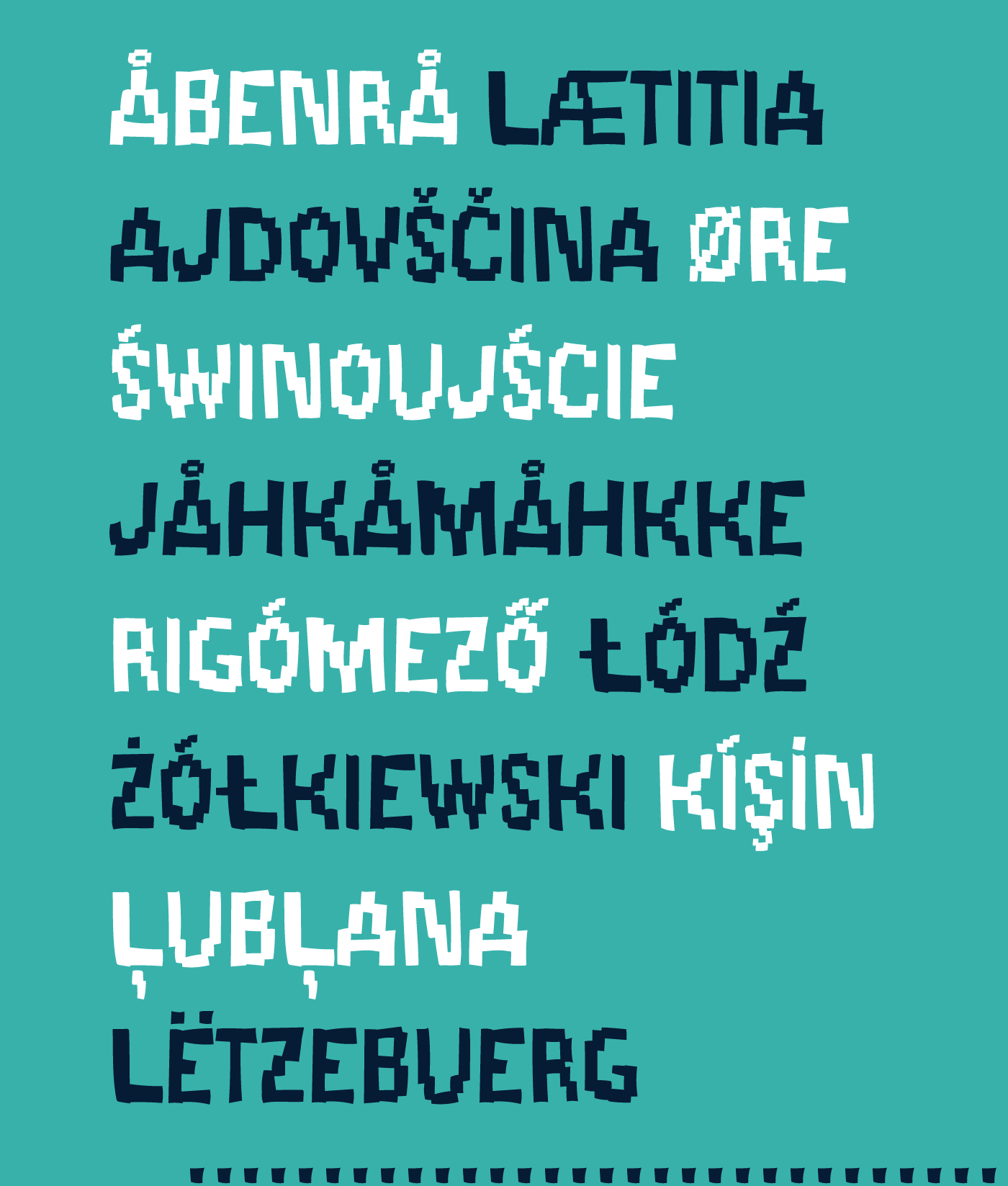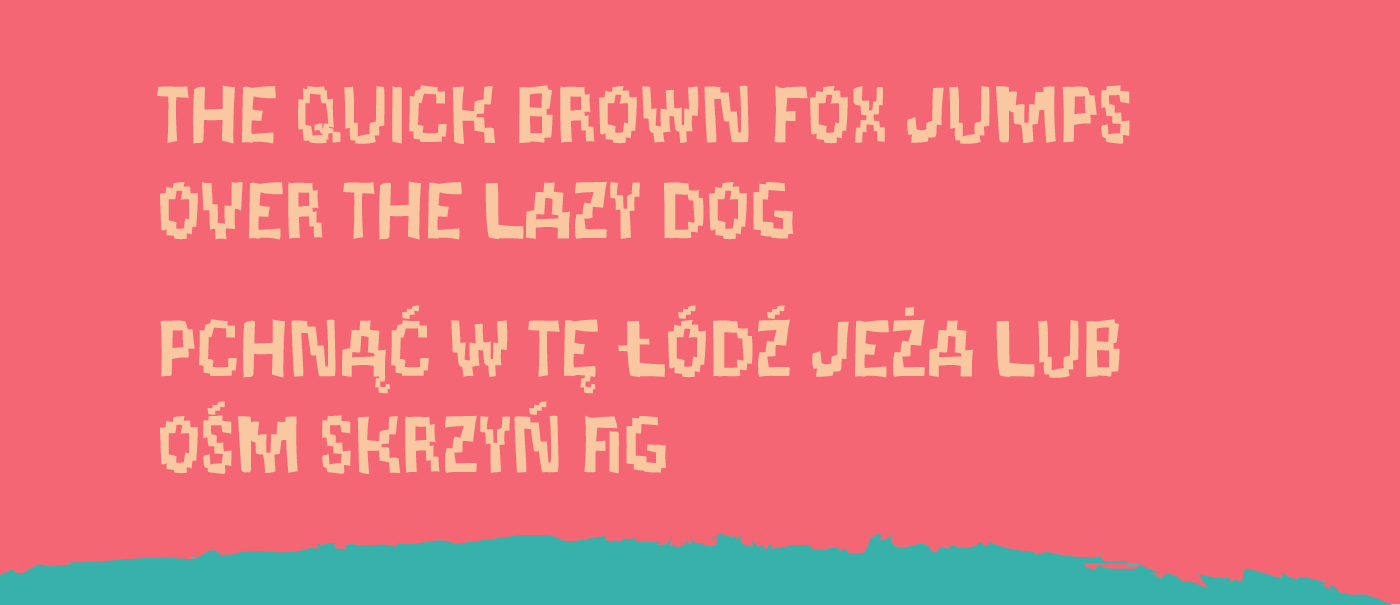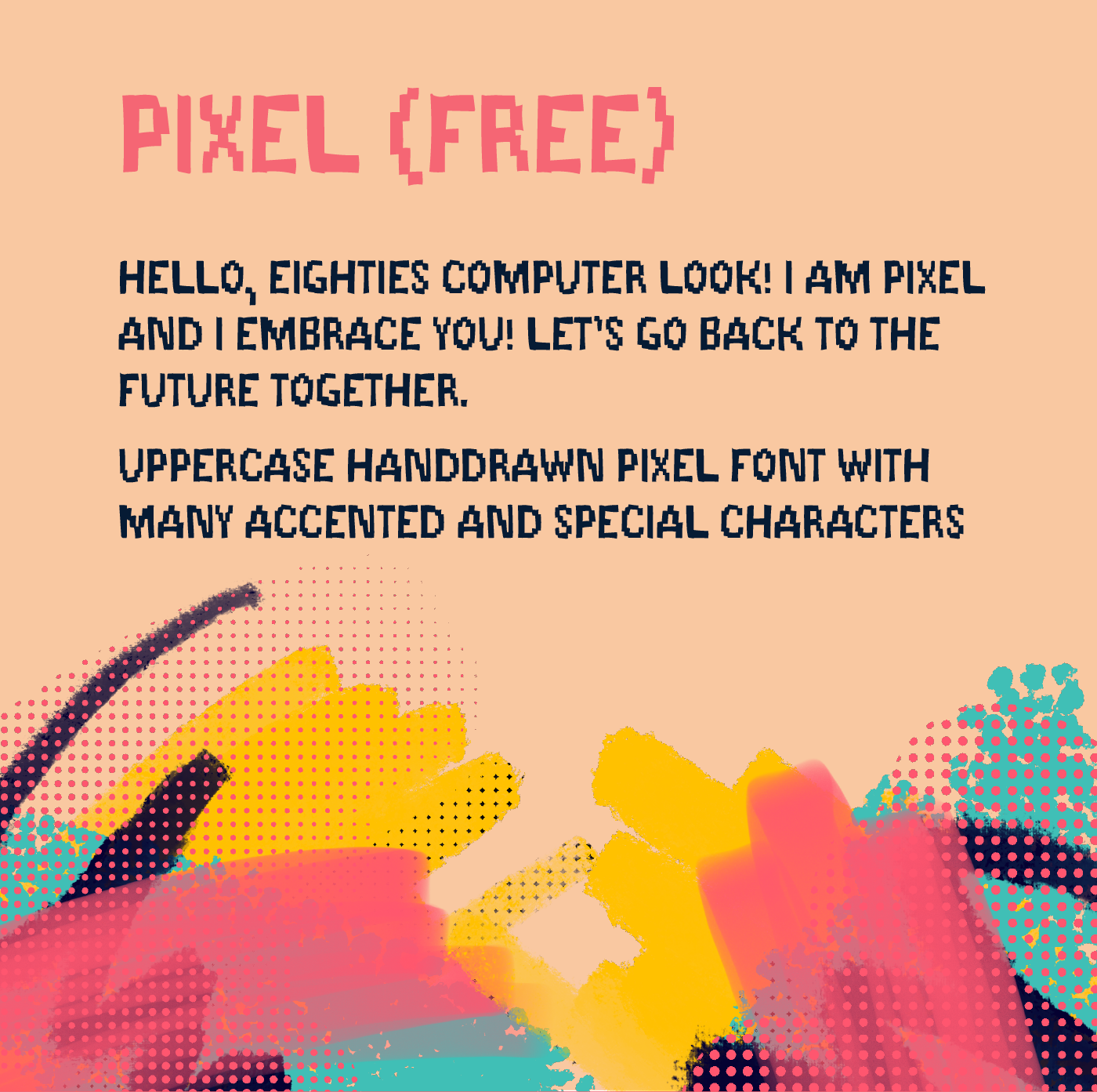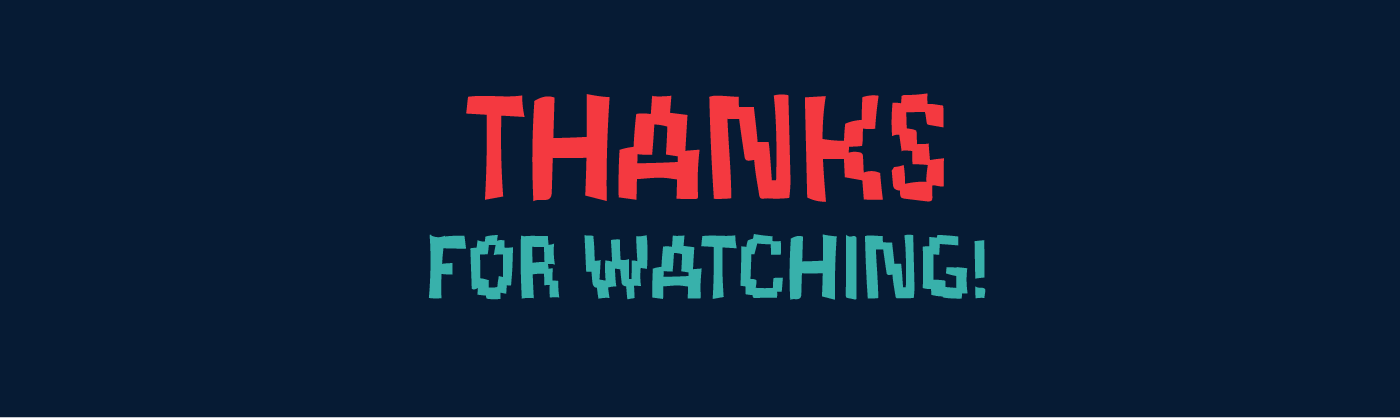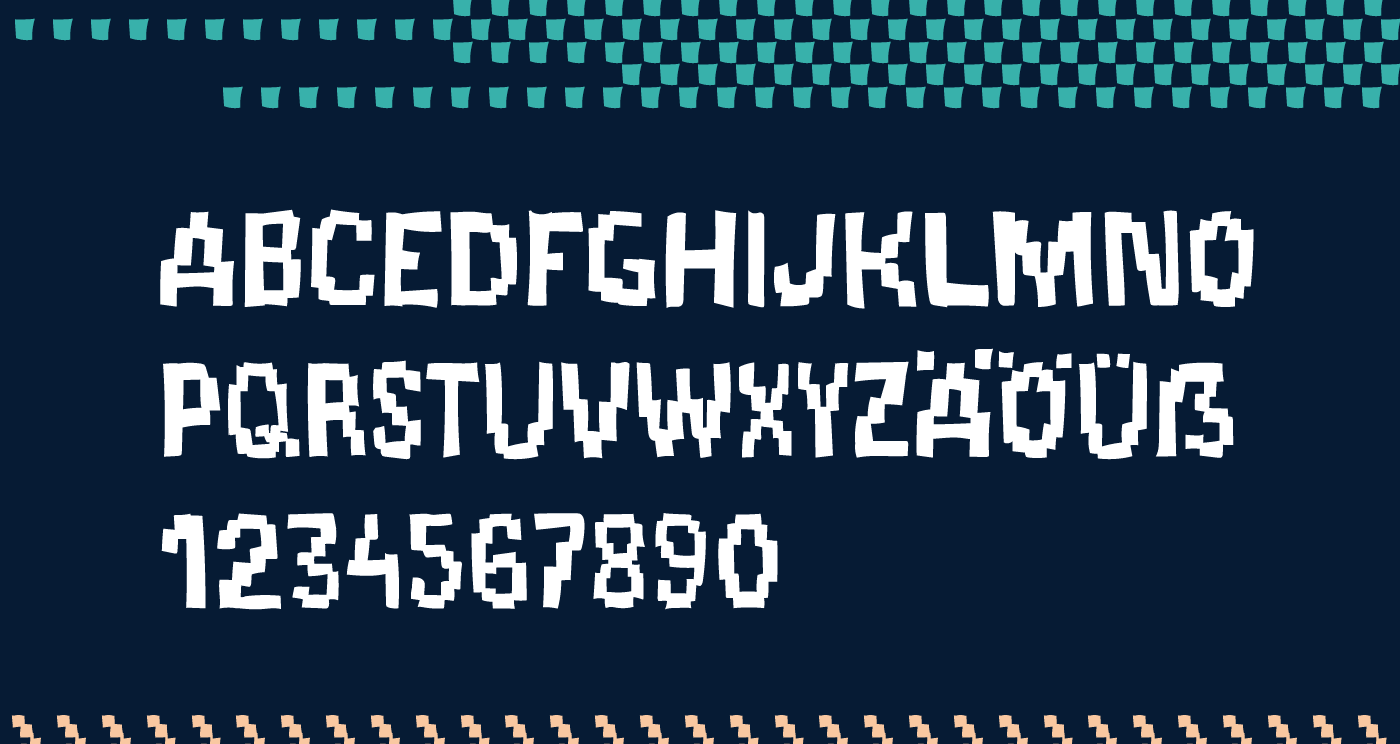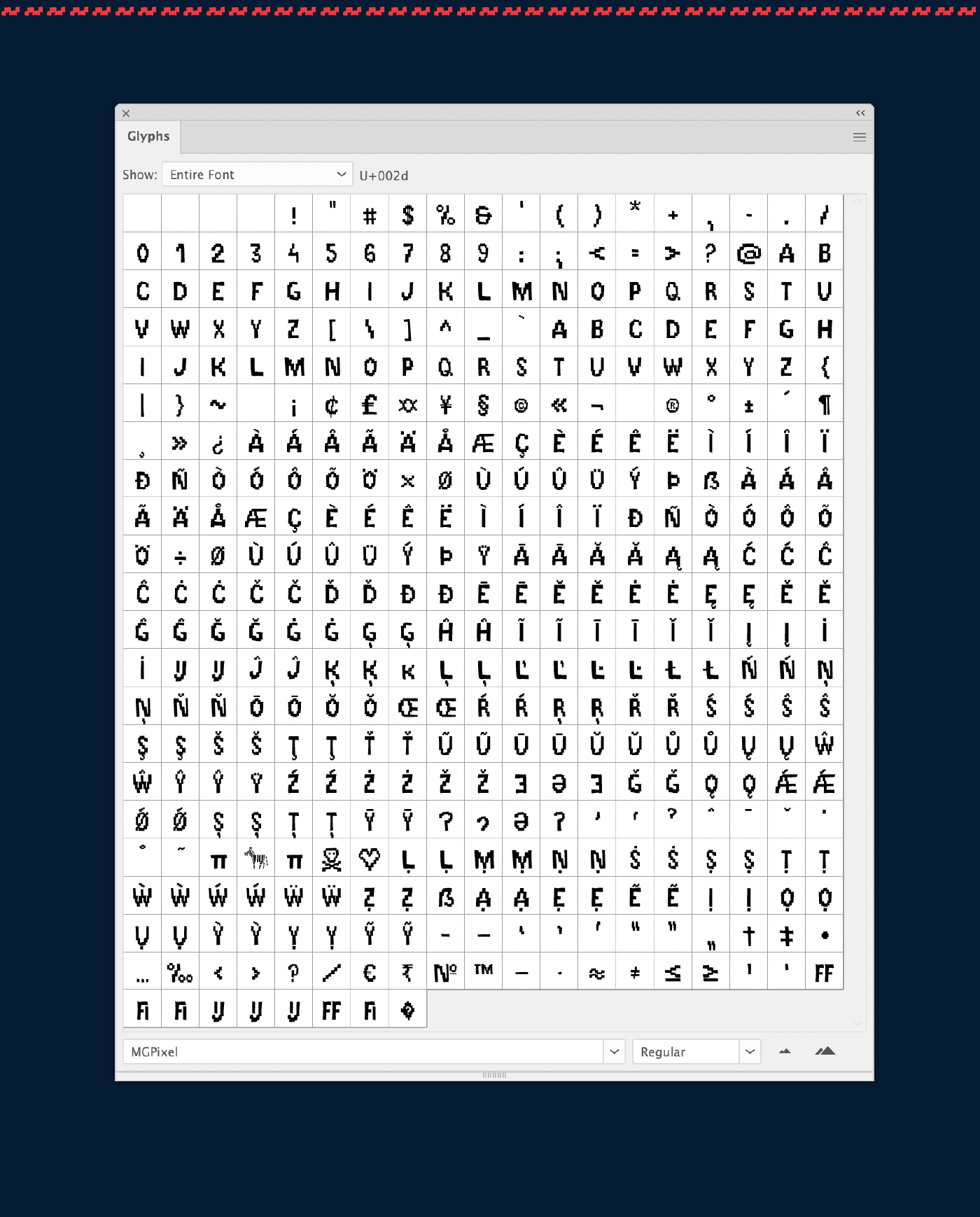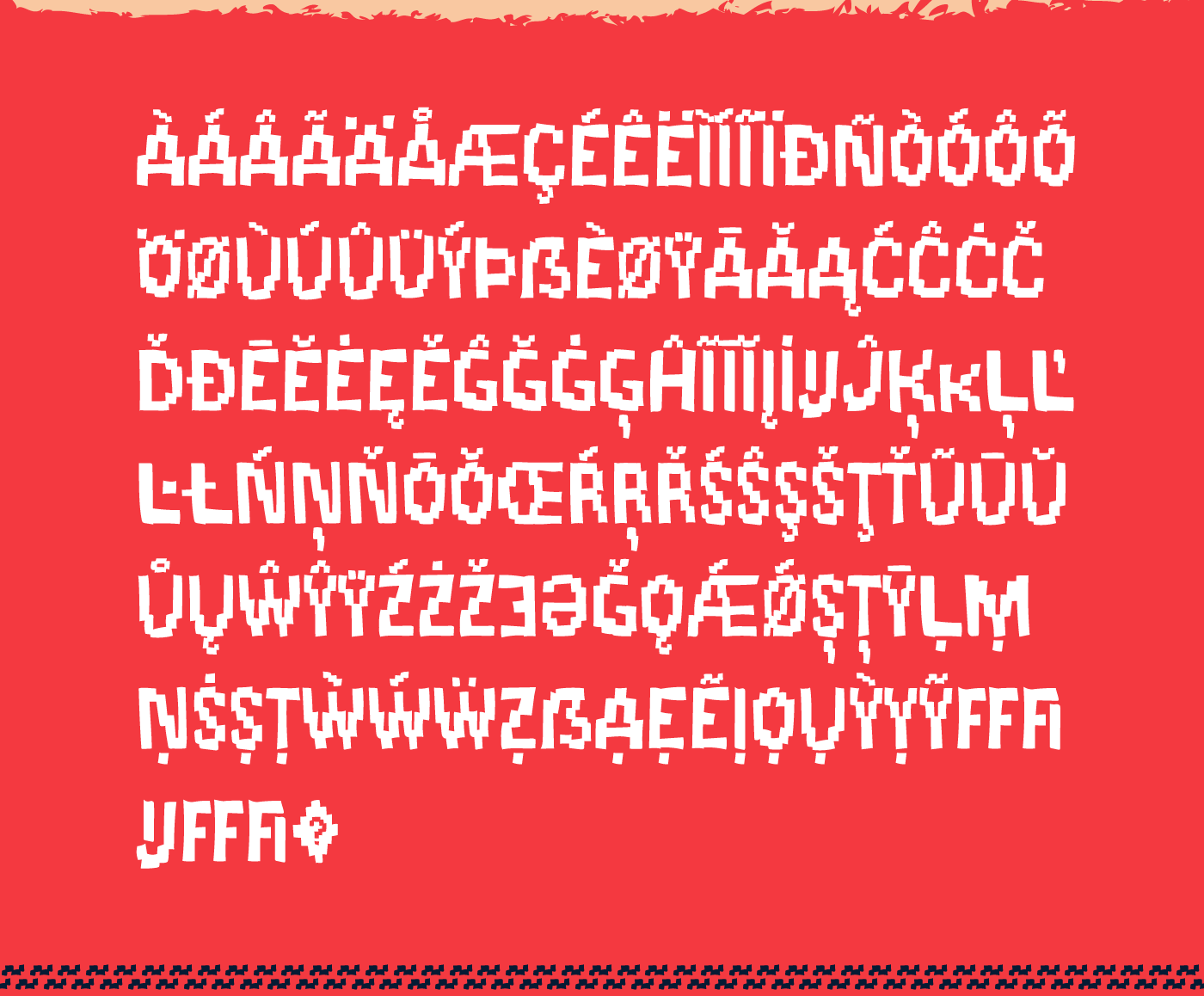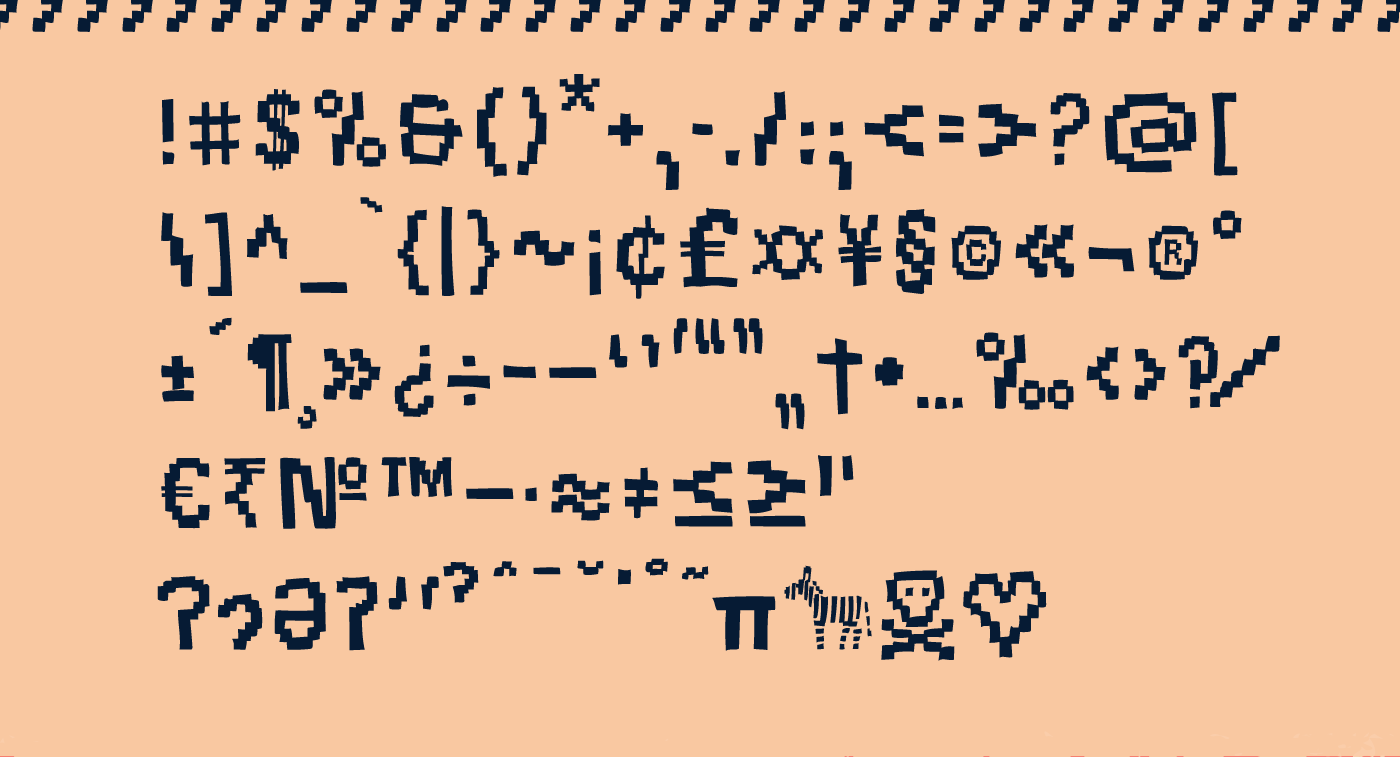
Handdrawn Pixel Font (FREE)
This pixel font is very different, because it's handdrawn. It has lots of diacritical marks and special characters so it's very versatile. And it's free.